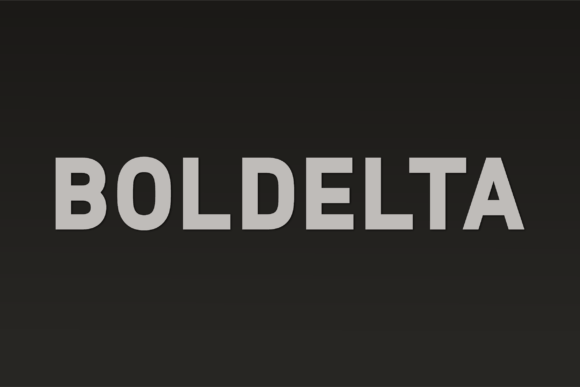
Welcome to the world of typography, where letters come alive and words take on a life of their own. Meet Boldelta, the all-caps sans serif font that will revolutionize your creative expression. Huntype, the mastermind behind this typographic wonder, has crafted a font that is not just a collection of characters, but a gateway to a world of visual intrigue and endless possibilities.
Step into the realm of modern design, where Boldelta reigns supreme. Its smooth and clean lines, coupled with a hint of contrast, create a visual symphony that elevates your designs to new heights. Logos, branding, and web headings become canvases for your imagination, as Boldelta's versatile nature adapts seamlessly to any context.
Boldelta is more than just a font; it's an experience. Immerse yourself in a world of clarity and precision, where every letterform is meticulously crafted to enhance readability and impact. Its crisp edges and well-defined curves command attention, ensuring your message cuts through the noise and resonates with your audience.
Unleash your creativity with endless variations. Experiment with different weights, sizes, and colors to find the perfect combination that captures the essence of your project. Let Boldelta become your creative partner, guiding you through a journey of visual storytelling that leaves a lasting impression.